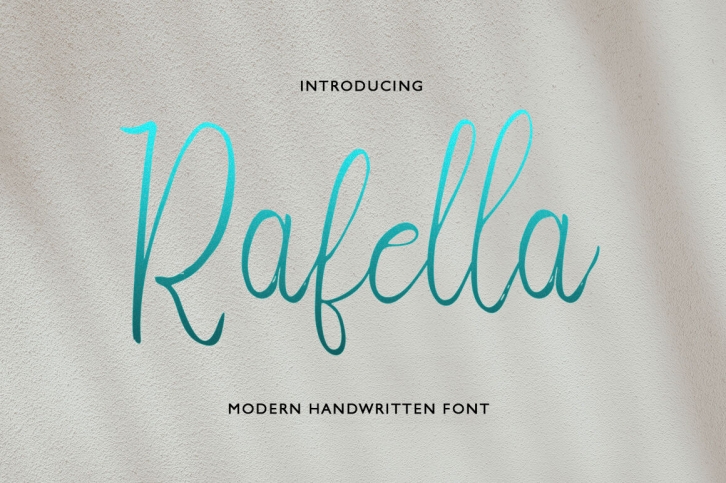
The Rafella script is a hand brush font made with brushes and ink, thick and irregular lines. Contains the complete set of lowercase, uppercase, alternative, binder, punctuation, numbers, and multilingual support.
And sans Delaney additionally, works in harmony with the script
Rafella Script  for creating awesome typography creations. Get inspiration from the preview above.
Contains complete sets of lowercase letters, uppercase letters, binders, punctuation marks, numbers, and multilingual support.
This font is ideal for use in bold color designs or bold handwriting styles, such as blog headings, posters, wedding elements, t-shirts, clothing, cover books, business cards, greeting cards, branding, merchandise,
handmade invitations and quotes and more.